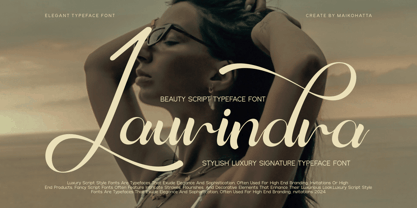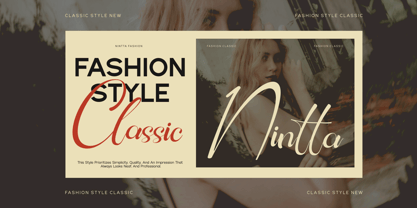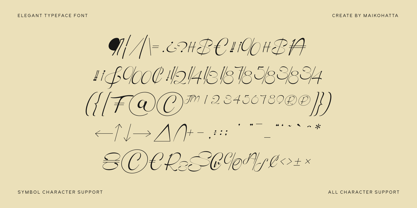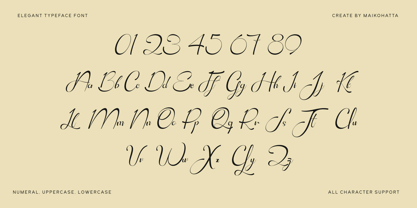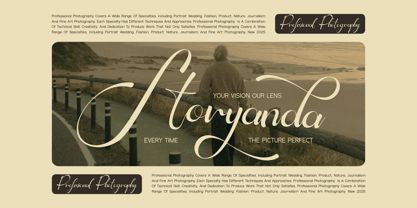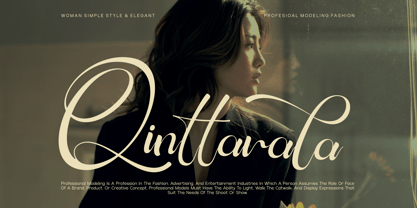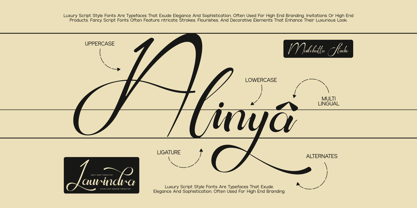
Laurindra
The Laurindra Font Family was designed by Gilang Ternadho and published by Maikohatta. Laurindra contains 1 styles. More about this family
Introducing our new product Laurindra - Luxury Script Font
Laurindra - is a very flexible choice and can be used in a variety of design contexts. Its ability to provide a clean, professional, contemporary look and its simplicity and visual appeal make this font good for use in the world of graphic design and modern typography.